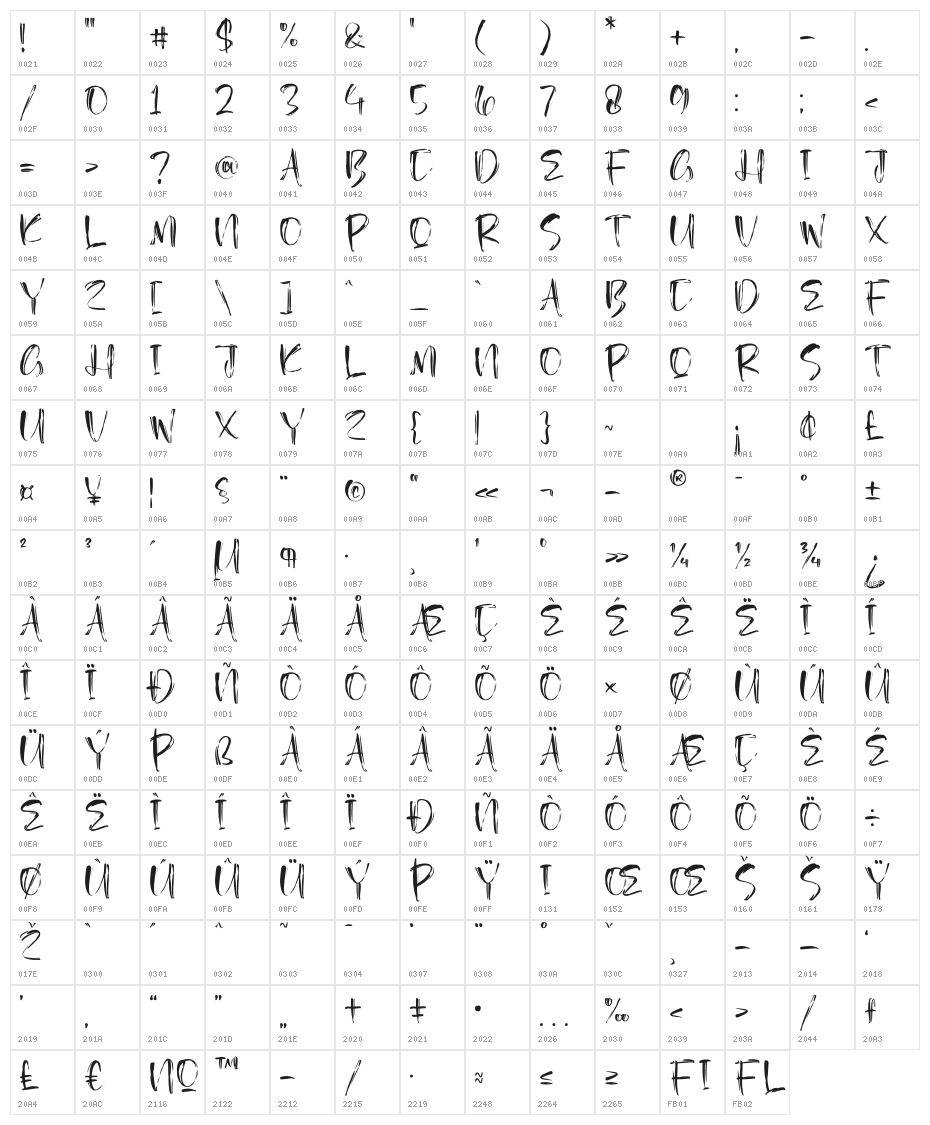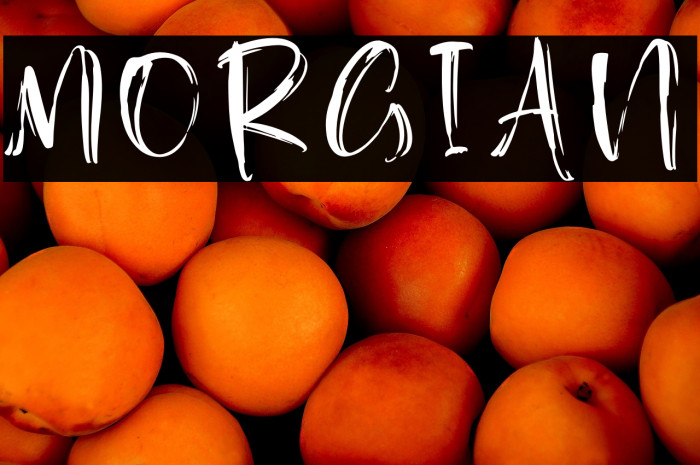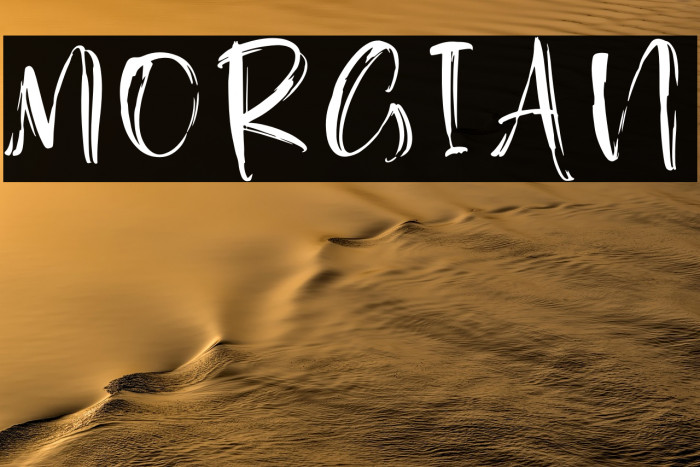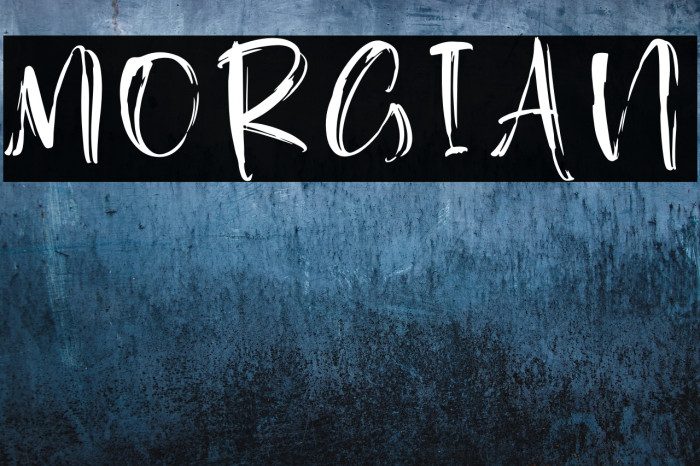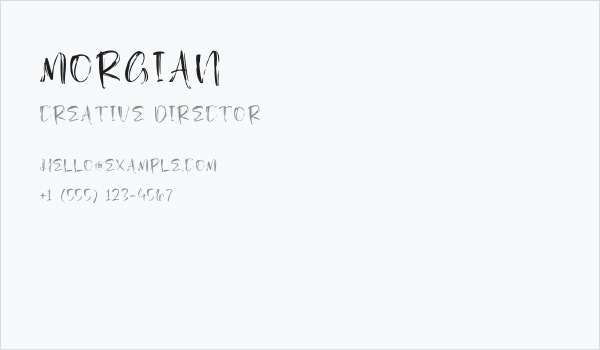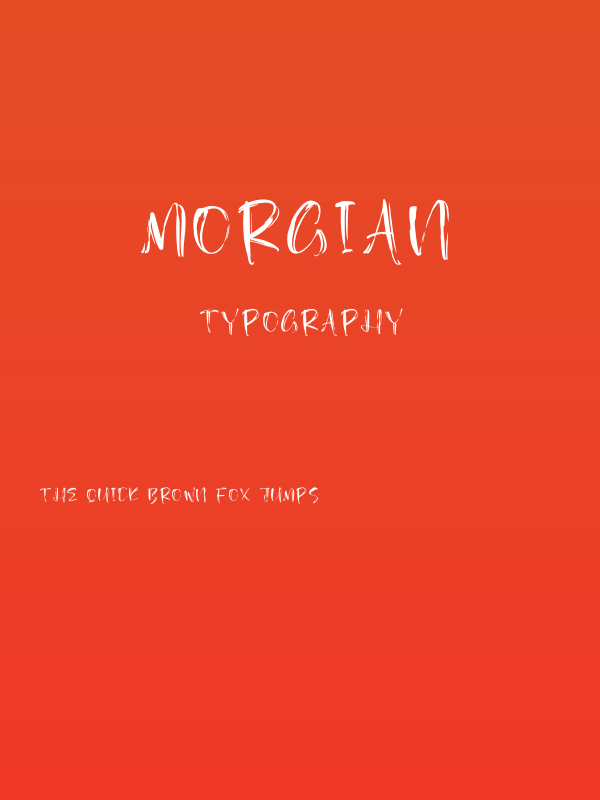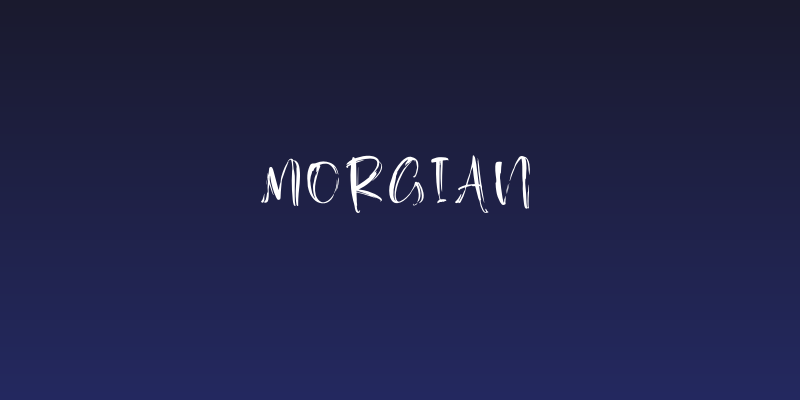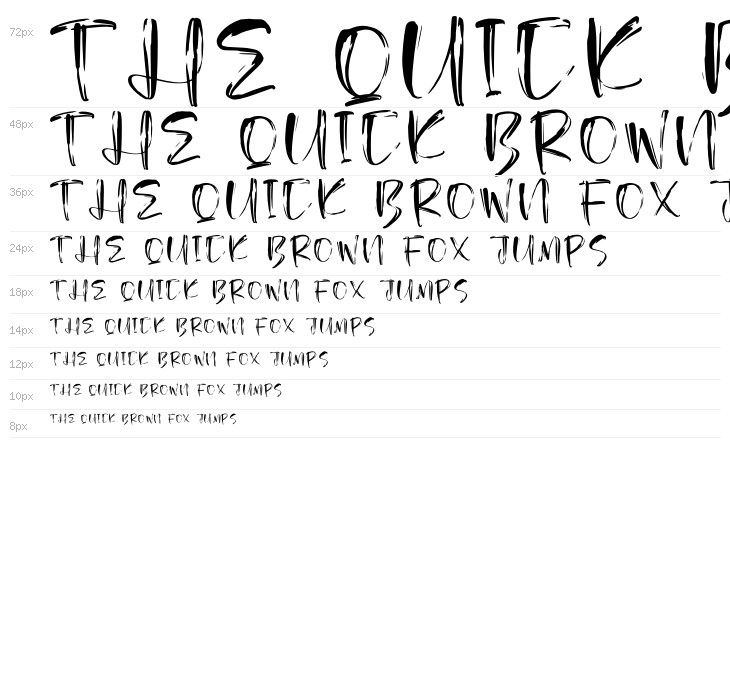
Morgian Font
Morgian Description
This font features a dynamic and expressive style with brush-like strokes that convey a sense of movement and energy. The uppercase and lowercase letters are crafted with irregular, flowing lines that give a handwritten appearance. The numerals and special characters maintain this artistic flair, making the font suitable for creative and informal designs. The overall look is bold and impactful, with varying stroke thickness that adds to its visual interest.
| Use Case | Logos, Headlines, Posters |
| Proposed Projects | Ideal for artistic projects, posters, branding, and any design requiring a personal, expressive touch. |